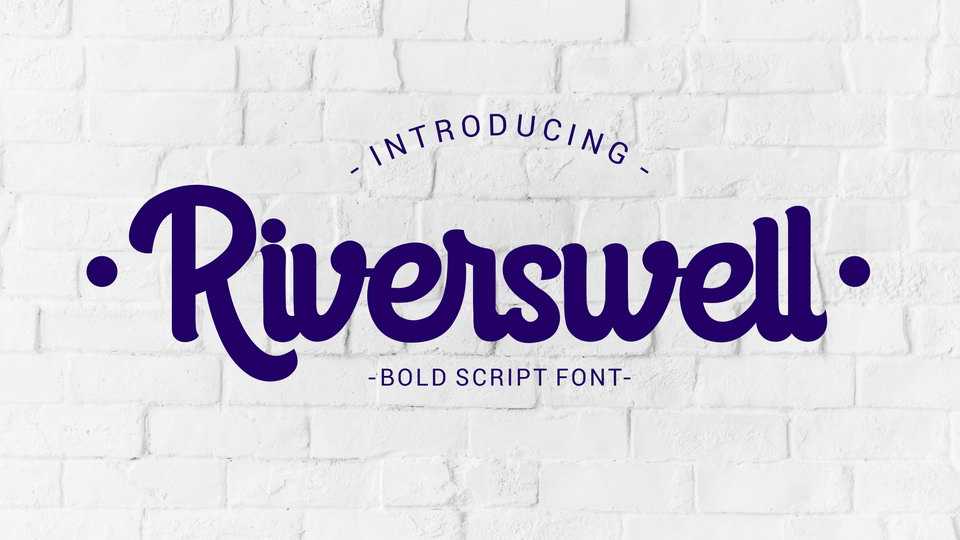
Download Riverswell font, a simple yet charming handwritten script. Its bold letter have a great readability and can be used to give your design a striking touch. Riverswell font is suitable for logos, branding, magazines, apparel, posters, advertising, and more.
Designer: Holydie Studio